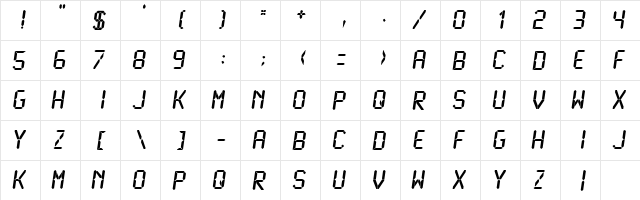
LCDMono Bold Font Preview
LCDMono Bold
LCDMono Bold Font Details
Design Context for LCDMono Typeface
LCDMono uses fixed-width spacing throughout, giving it the structured, systematic character associated with coding environments and technical documentation. Its bold stroke weight gives it real presence on the page.